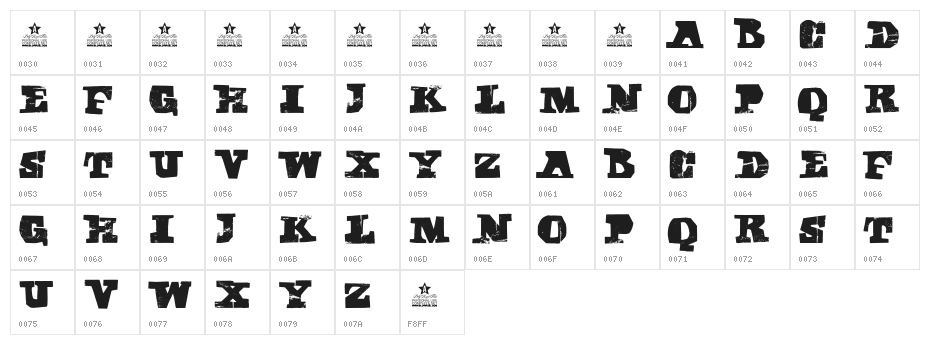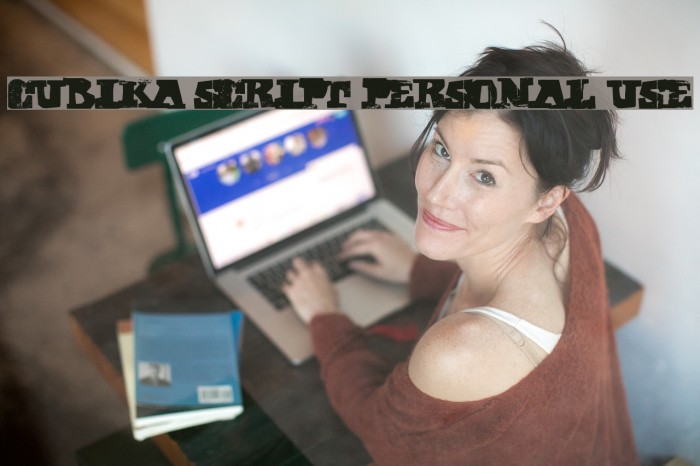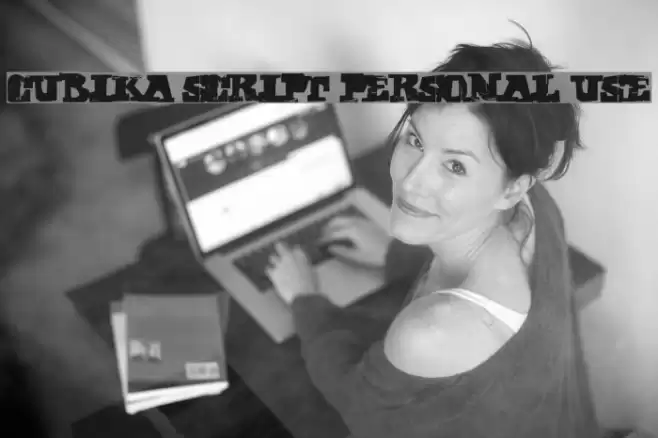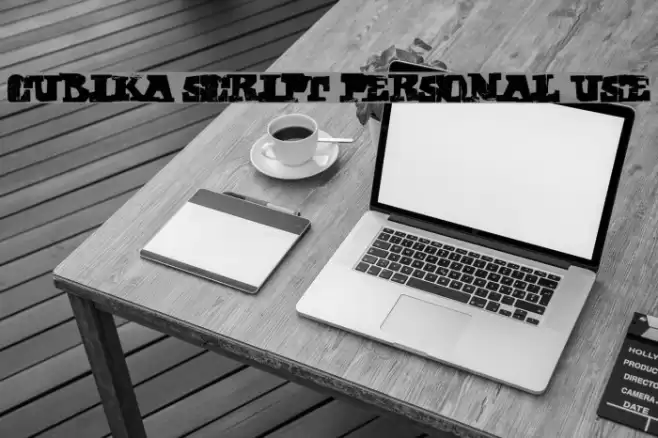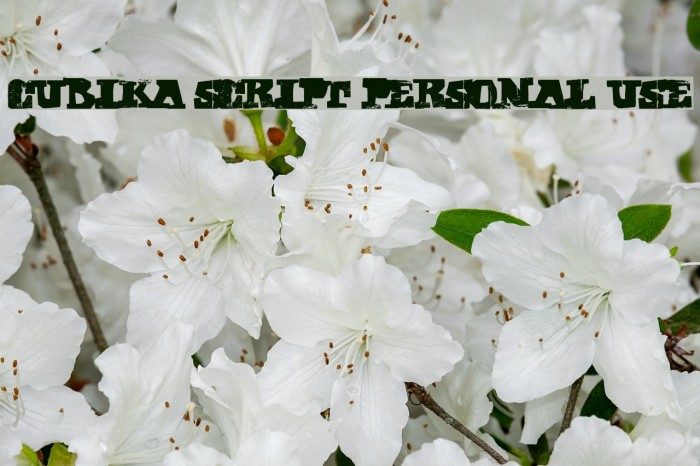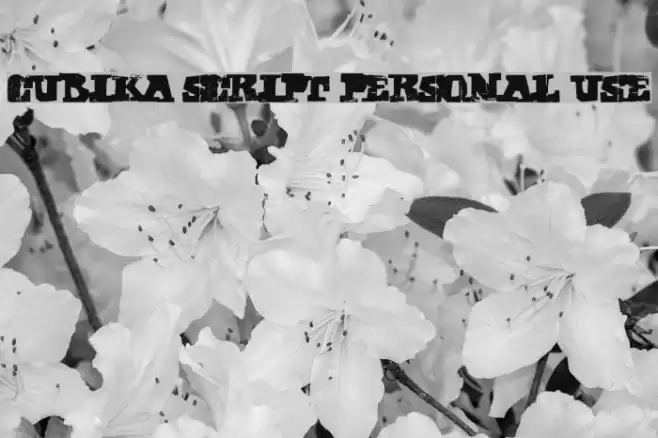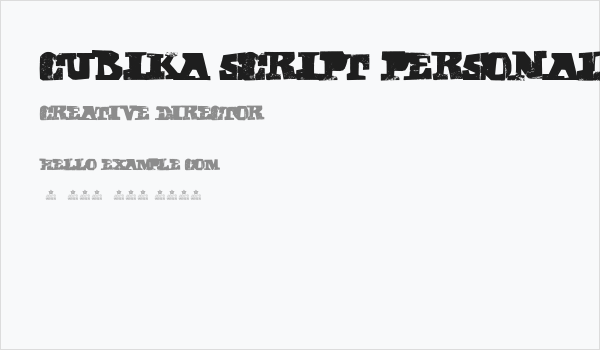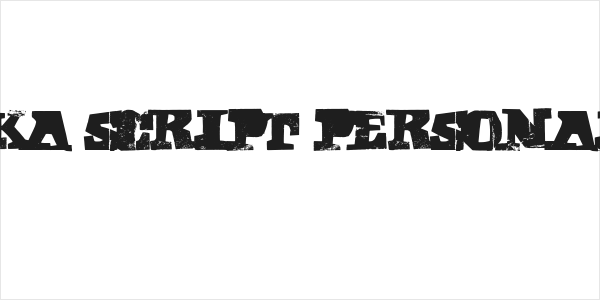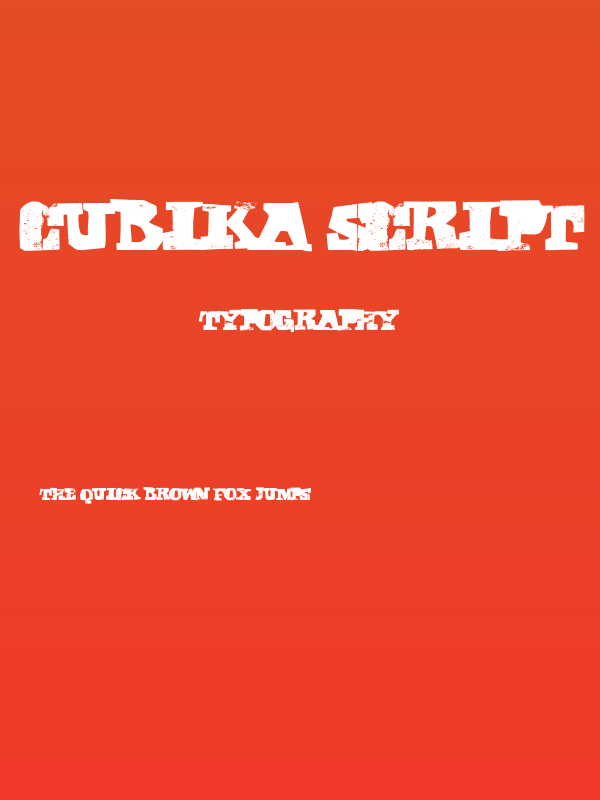
CUBIKA SCRIPT Personal Use Font
This font features a bold and distressed style, reminiscent of grunge or urban street art. The uppercase letters are heavily textured, giving them a rugged and worn appearance. The design is highly decorative, with each character appearing as if it has been stamped or painted with a rough brush. This creates a dynamic and energetic feel, making it suitable for projects that require a bold statement. The font's unique texture and style make it stand out, ideal for creative and unconventional designs.